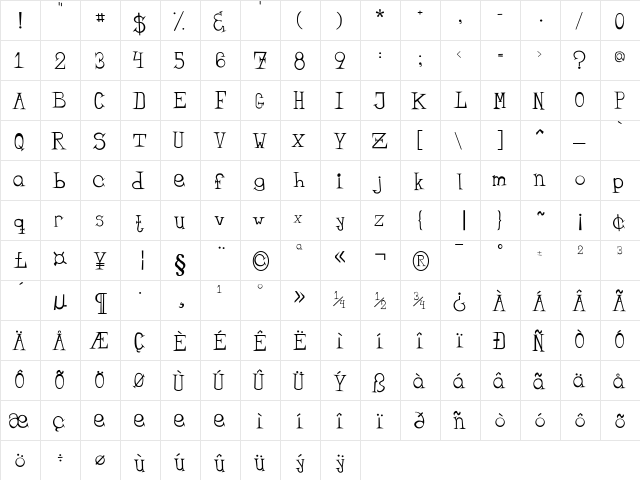
Bandit Medium Font Preview
Bandit Medium
Design Context for Bandit Typeface
Bandit takes a measured approach to typography — its balanced proportions and neutral character make it a reliable workhorse for both digital and print work.